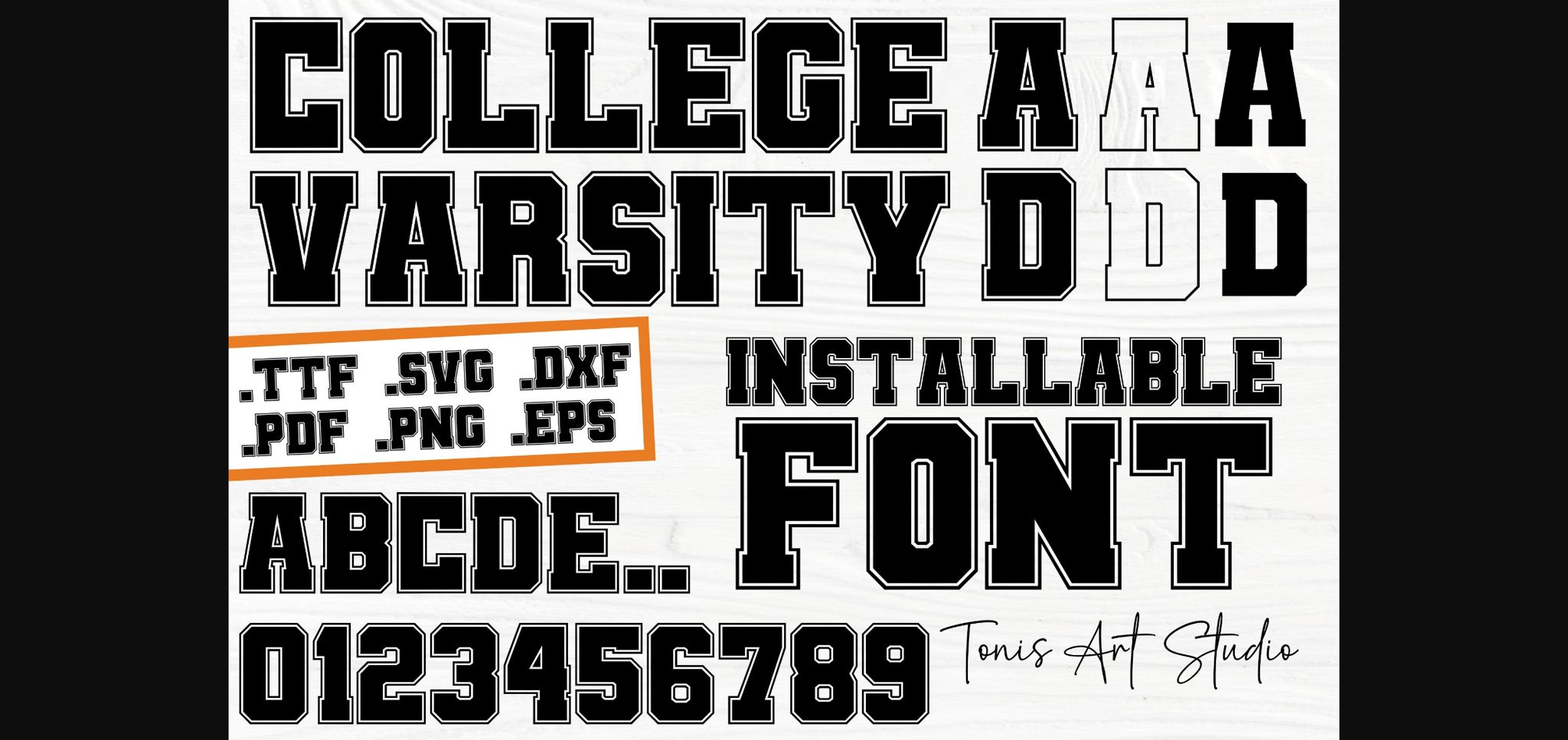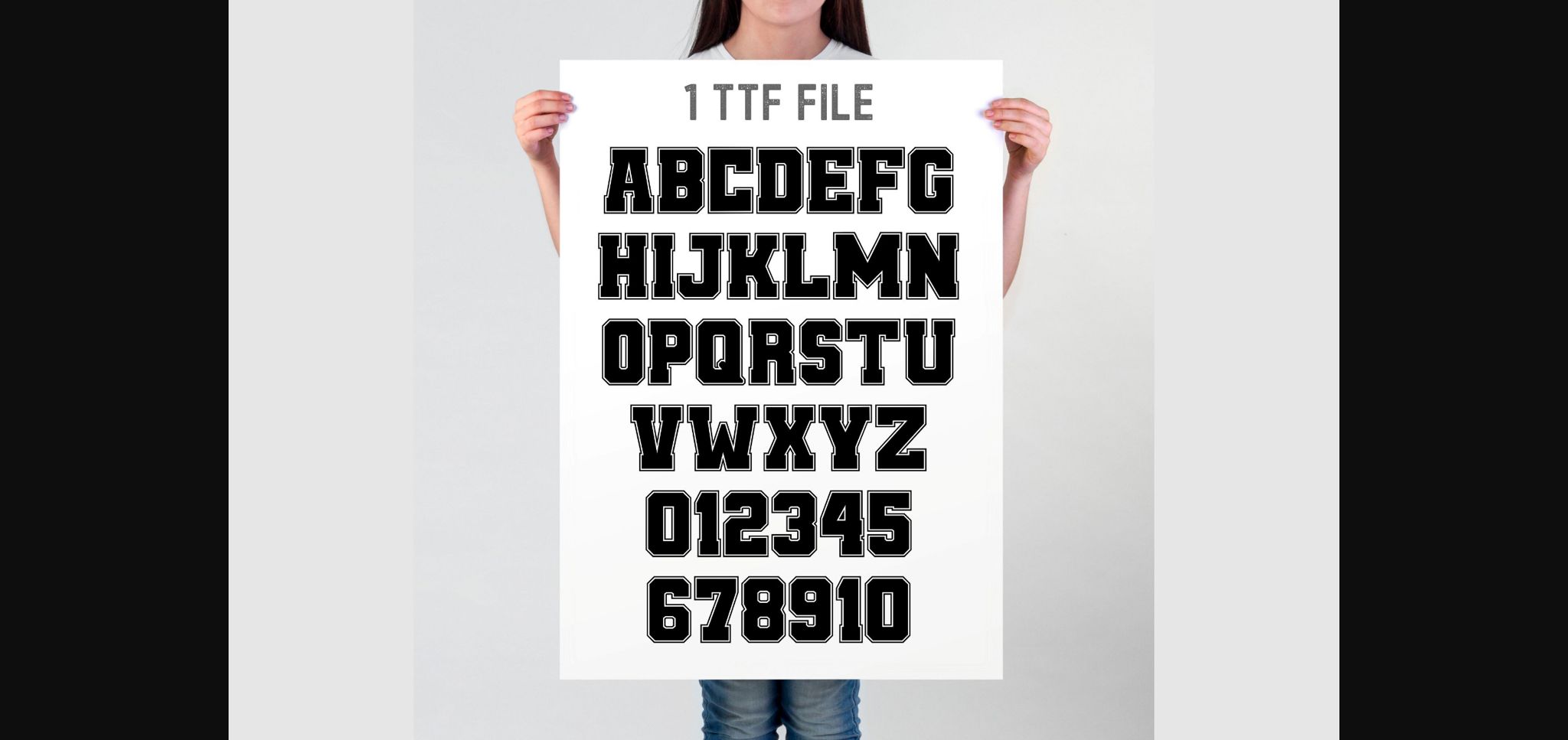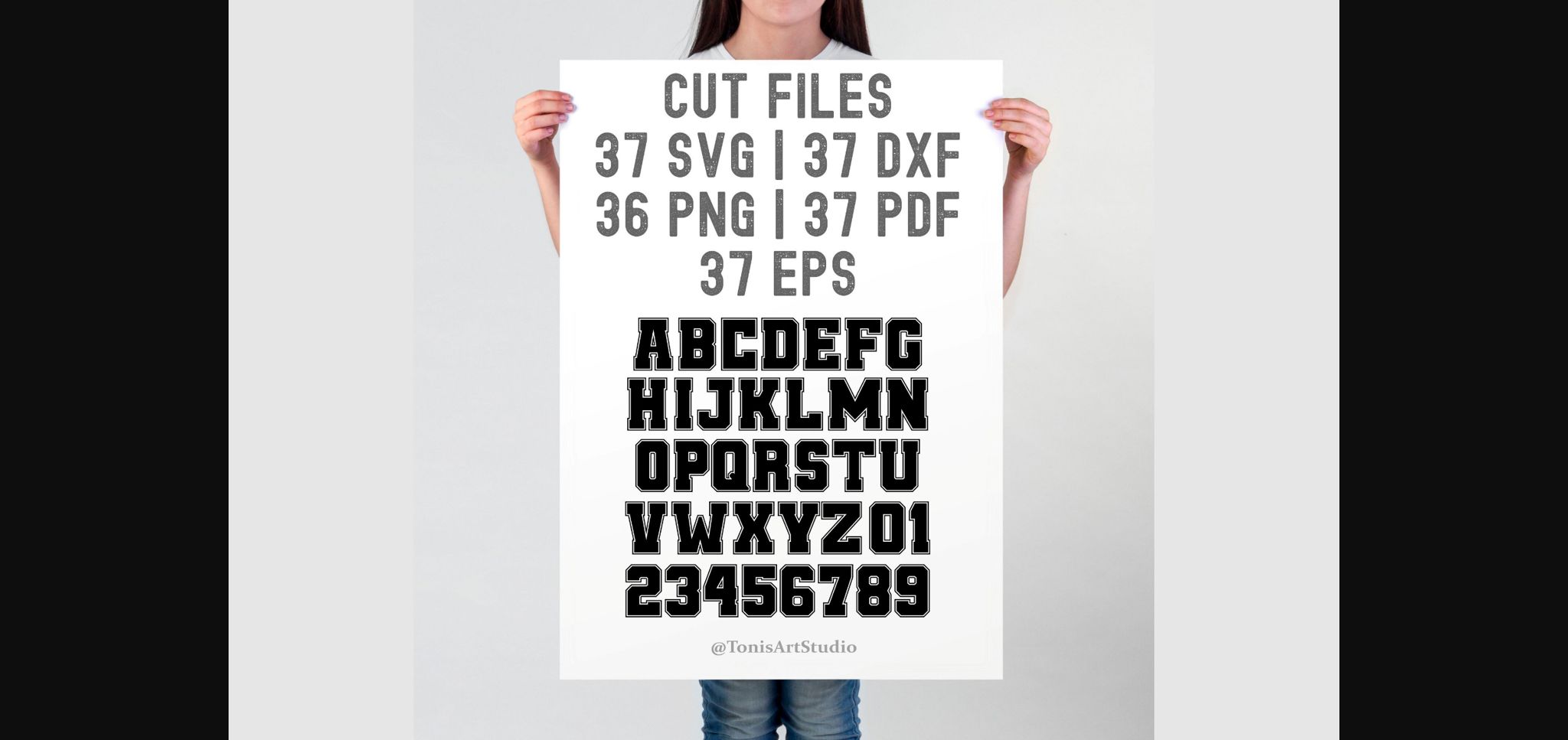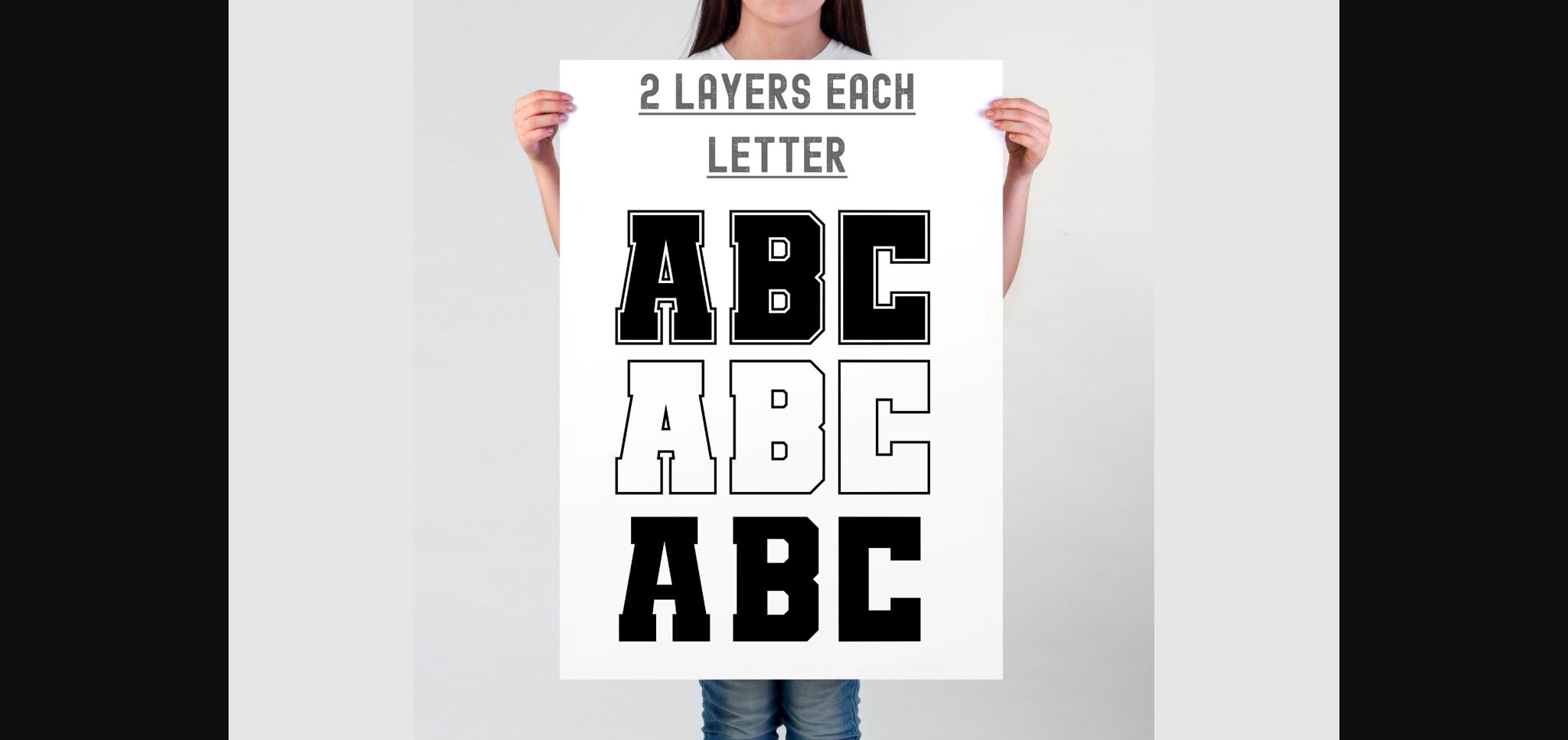
About Ab College Outline Font
Introducing the College Font SVG, perfect for all your varsity-themed creations! This outline font featuring classic sports letters inspired by university aesthetics. Elevate your projects with the timeless and versatile Varsity Font SVG, adding a touch of collegiate charm to your designs. Perfect for crafting, apparel, signage, and more, this font set is a must-have for any sports fan or design enthusiast. Make a statement with these bold and dynamic letters today!